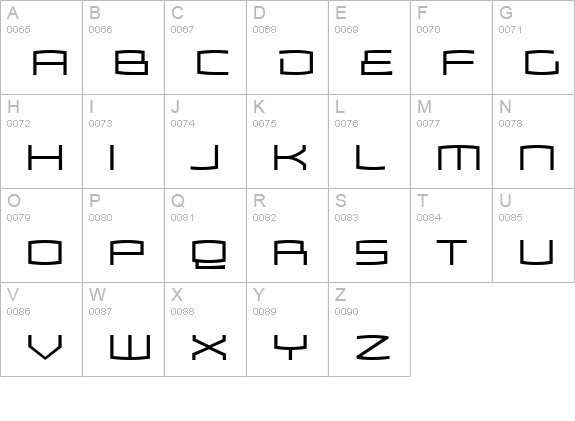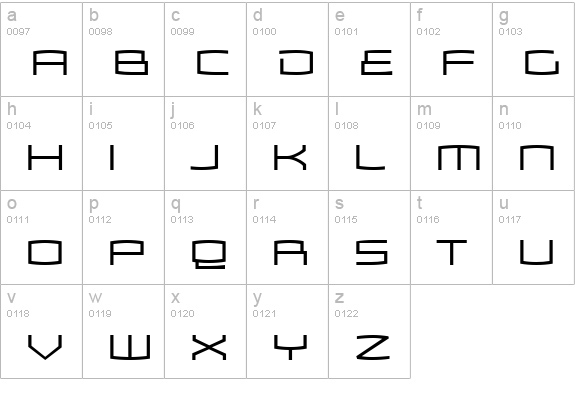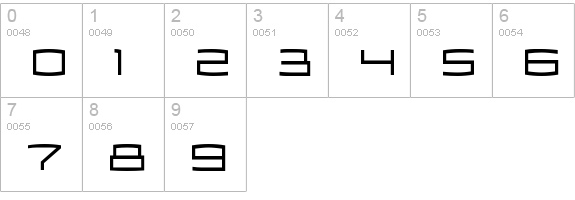
Zosma Light is a refined, elegant variant in the Zosma typeface family \xE2\x80\x94 well suited to elegant body text, refined sub-headings, and luxury branding.
Introducing Zosma Light font - a sleek and modern typeface that exudes elegance and sophistication. Zosma Light is perfect for a wide range of design projects, from branding and advertising to editorial and web design. With its clean lines and subtle curves, this font brings a touch of refinement to any text or headline. What's more, Zosma Light is completely free to use, making it a valuable addition to any designer's toolkit. You can easily download this font at FontsMarket.com, where it is freely available for both personal and commercial use. Don't miss out on the opportunity to elevate your designs with the timeless beauty of Zosma Light font.